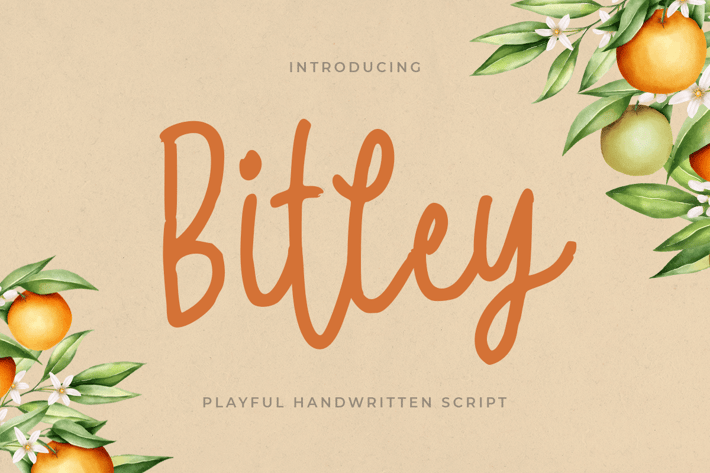
Bitley - Playful Handwritten Font
Bitley is A Playful Handwritten Font with nice and beauty style and so charming. This font specially crafted for your branding, quotes design projects or cute logo, unique, modern for any designs such as print, merchandise, and so many more with easy to use but unique results are so playful.
Enjoy to Design any your needs with cute and playful feel.